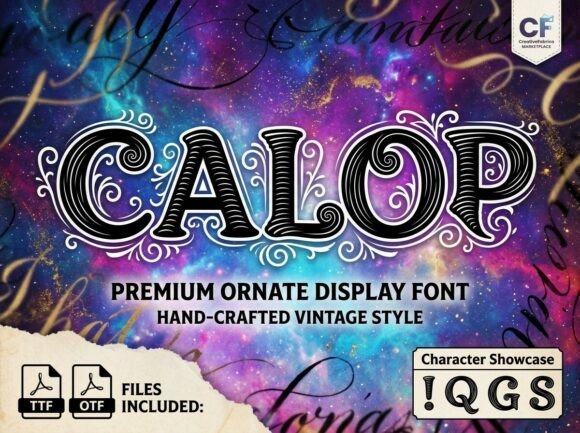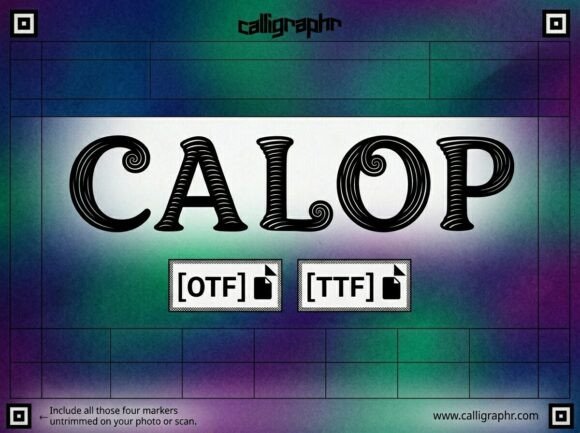
Introducing Calop Font: A Masterpiece of Rhythmic Elegance
Enter a realm of rhythmic elegance with Calop, a hypnotic display typeface that embodies the essence of classical-and-curving design. This stunning font features massive, solid letterforms that are uniquely characterized by a dense texture of rhythmic, hand-drawn horizontal “engraving” lines and elegant spiraling flourishes integrated into the terminals. With its heavy illustrative weight and sophisticated personality, Calop is the premier choice for designers and crafters seeking to add a touch of vintage charm and mystique to their projects.
The Unique Characteristics of Calop Font
Calop’s design is a masterclass in elegance and sophistication. The font’s massive letterforms are crafted with precision and attention to detail, featuring a dense texture of hand-drawn horizontal lines that evoke the feeling of engraving. These lines add a sense of depth and dimensionality to the font, making it perfect for headlines, titles, and other display text. The elegant spiraling flourishes integrated into the terminals of each letterform add a touch of whimsy and sophistication, setting Calop apart from other display typefaces.
Perfect for Vintage Branding and Artisanal Spirits Labels
Calop’s unique blend of classic and curving design elements makes it an ideal choice for independent vintage branding and artisanal spirits labels. The font’s sophisticated personality and heavy illustrative weight evoke the feeling of luxury and exclusivity, perfect for high-end brands seeking to establish a strong visual identity. Whether you’re designing a label for a craft beer, a boutique wine, or a small-batch spirits, Calop is the perfect choice for adding a touch of elegance and sophistication.
Adding a Touch of Mythology and Mysticism to Your Designs
Calop’s design is also steeped in mythology and mysticism, making it perfect for book titles, social media headers, and other projects that require a touch of the mystical and magisterial. The font’s elegant spiraling flourishes and rhythmic engraving lines evoke the feeling of ancient texts and mystical artifacts, adding a sense of wonder and enchantment to your designs. Whether you’re designing a book cover, a social media header, or a promotional poster, Calop is the perfect choice for adding a touch of magic and mystery.
Why Designers and Crafters Love Calop Font
Designers and crafters love Calop for its unique blend of elegance, sophistication, and whimsy. The font’s heavy illustrative weight and sophisticated personality make it perfect for adding a touch of luxury and exclusivity to any project. The font’s versatility also makes it a favorite among designers, who can use it for everything from vintage branding and artisanal spirits labels to mythological book titles and social media headers.
Key Features of Calop Font
- Massive, solid letterforms: Calop’s letterforms are crafted with precision and attention to detail, featuring a dense texture of hand-drawn horizontal lines and elegant spiraling flourishes.
- Heavy illustrative weight: Calop’s heavy illustrative weight makes it perfect for headlines, titles, and other display text.
- Sophisticated personality: Calop’s sophisticated personality and elegant design elements evoke the feeling of luxury and exclusivity.
- Versatility: Calop is perfect for a wide range of projects, from vintage branding and artisanal spirits labels to mythological book titles and social media headers.
In conclusion, Calop font is a masterpiece of rhythmic elegance that is perfect for designers and crafters seeking to add a touch of vintage charm and mystique to their projects. With its unique blend of classic and curving design elements, heavy illustrative weight, and sophisticated personality, Calop is the premier choice for independent vintage branding, artisanal spirits labels, mythological book titles, and high-impact social media headers. Whether you’re a designer, crafter, or simply someone who appreciates beautiful typography, Calop is a font that is sure to inspire and delight.